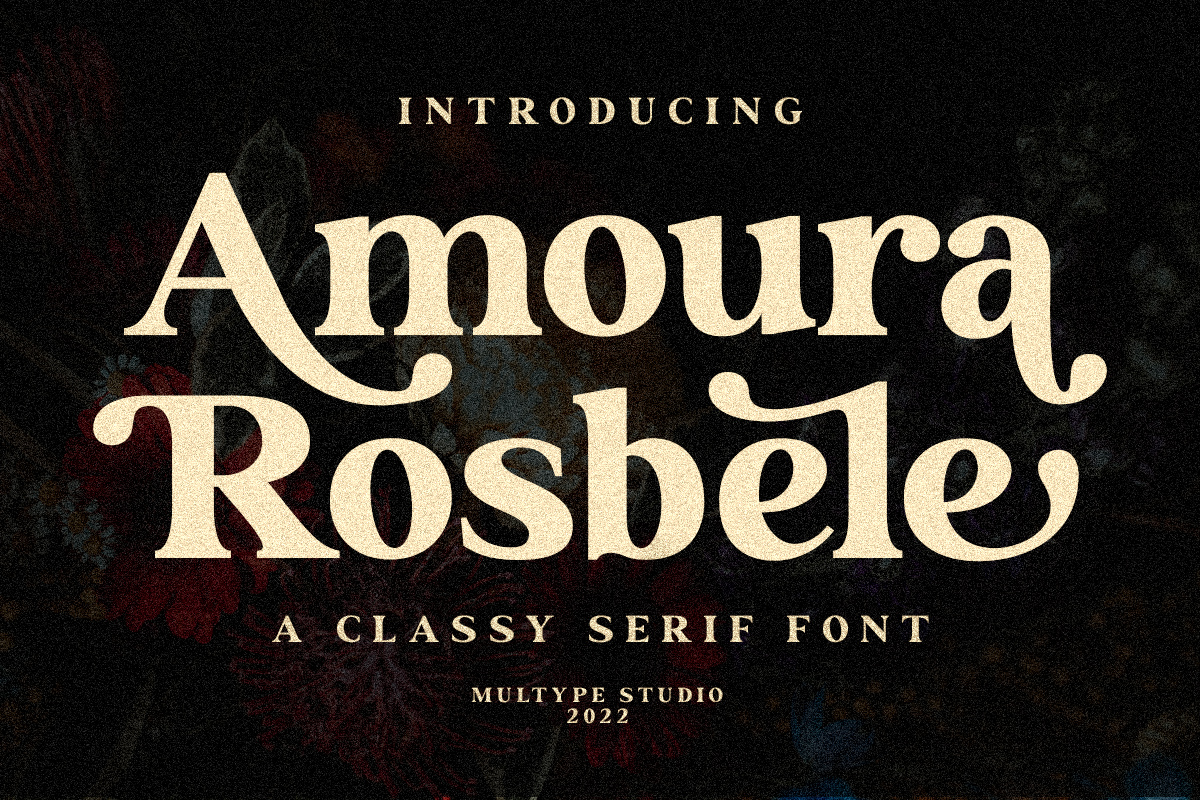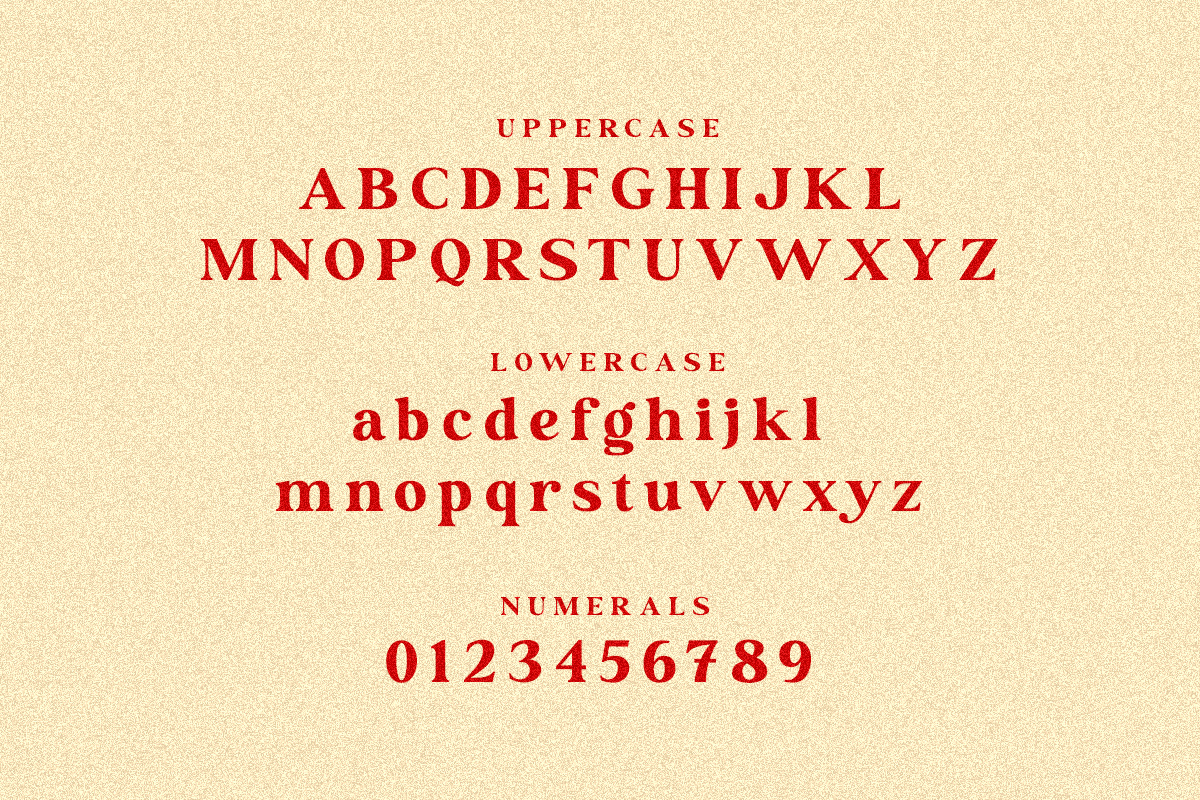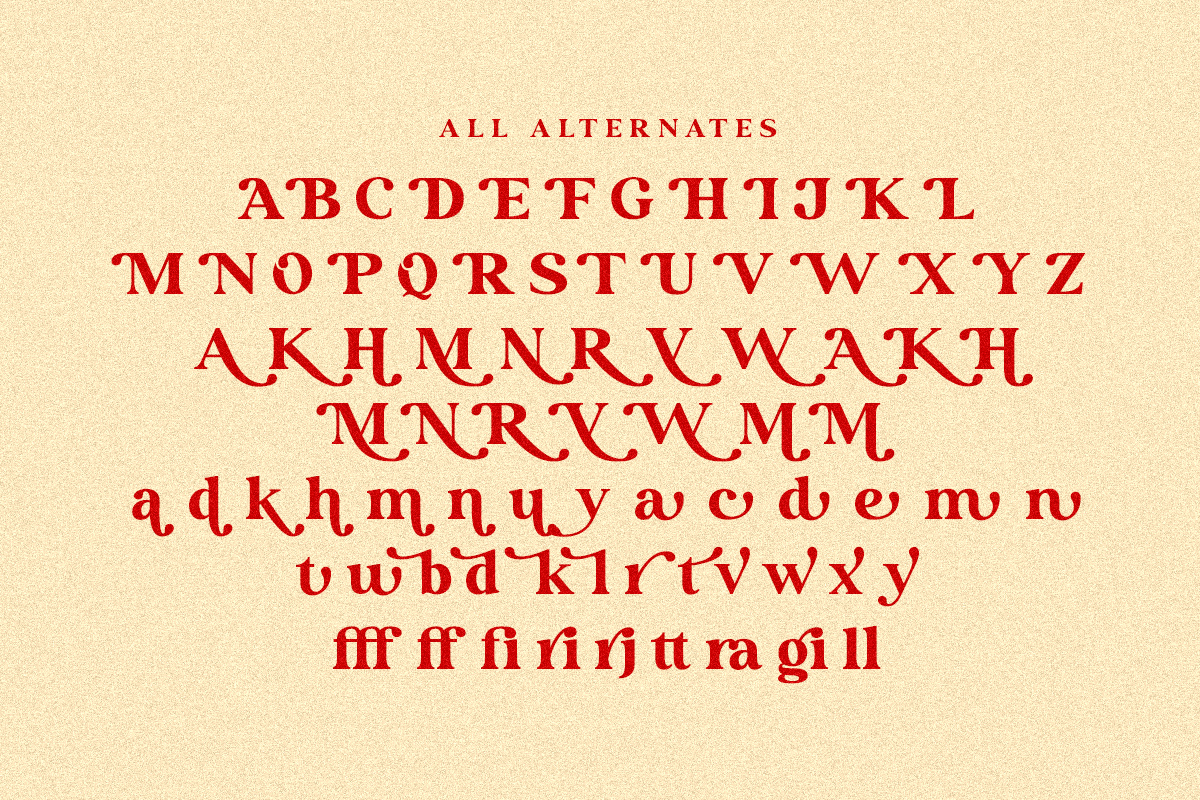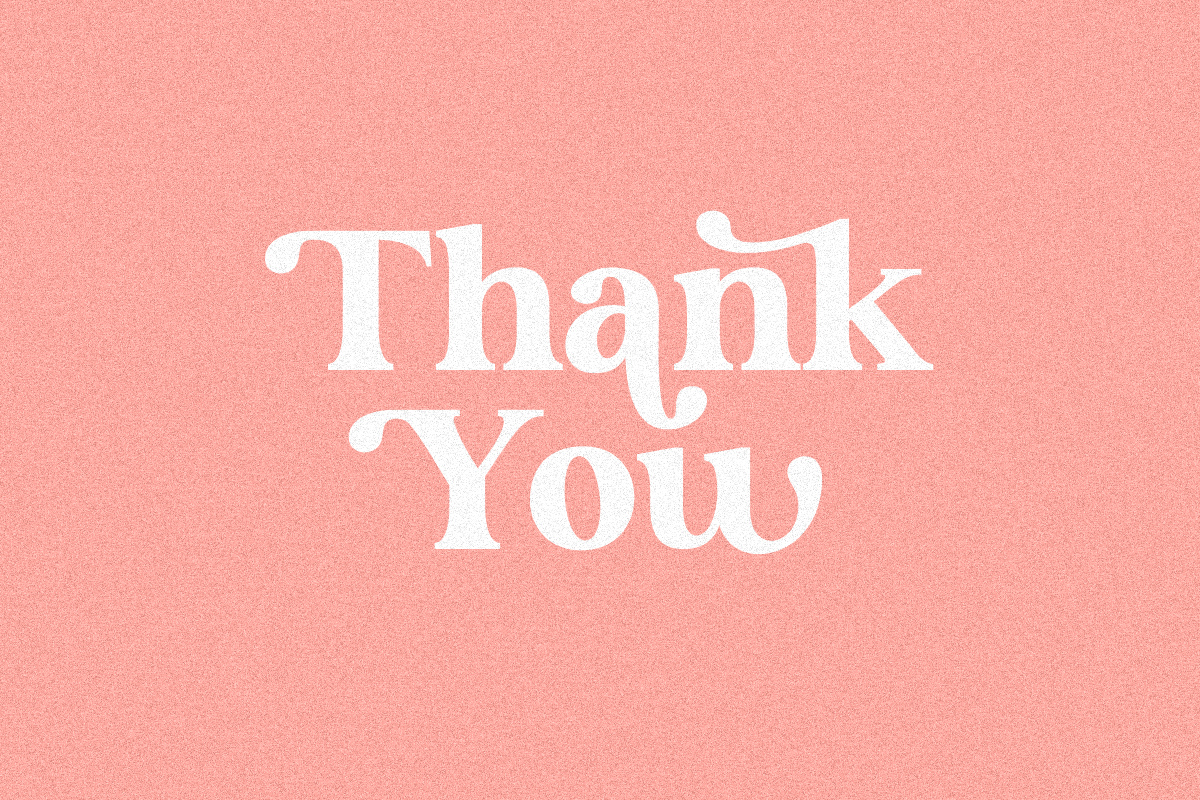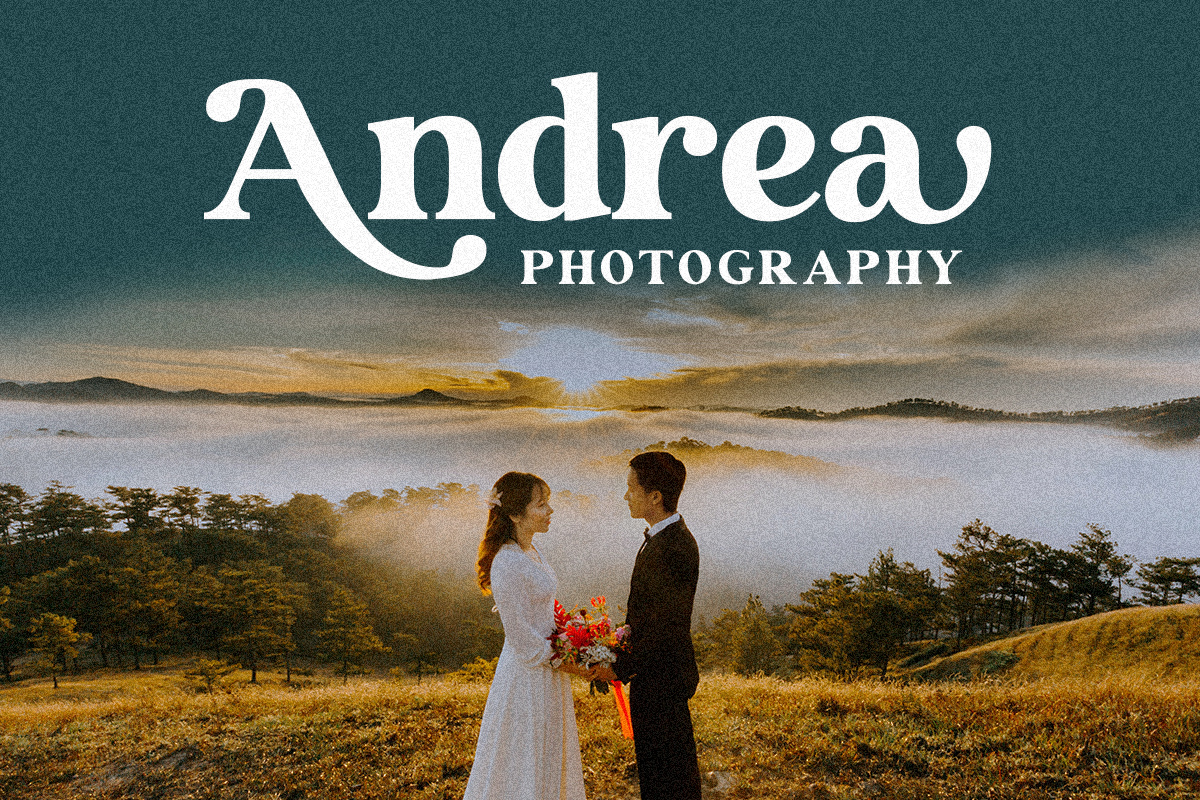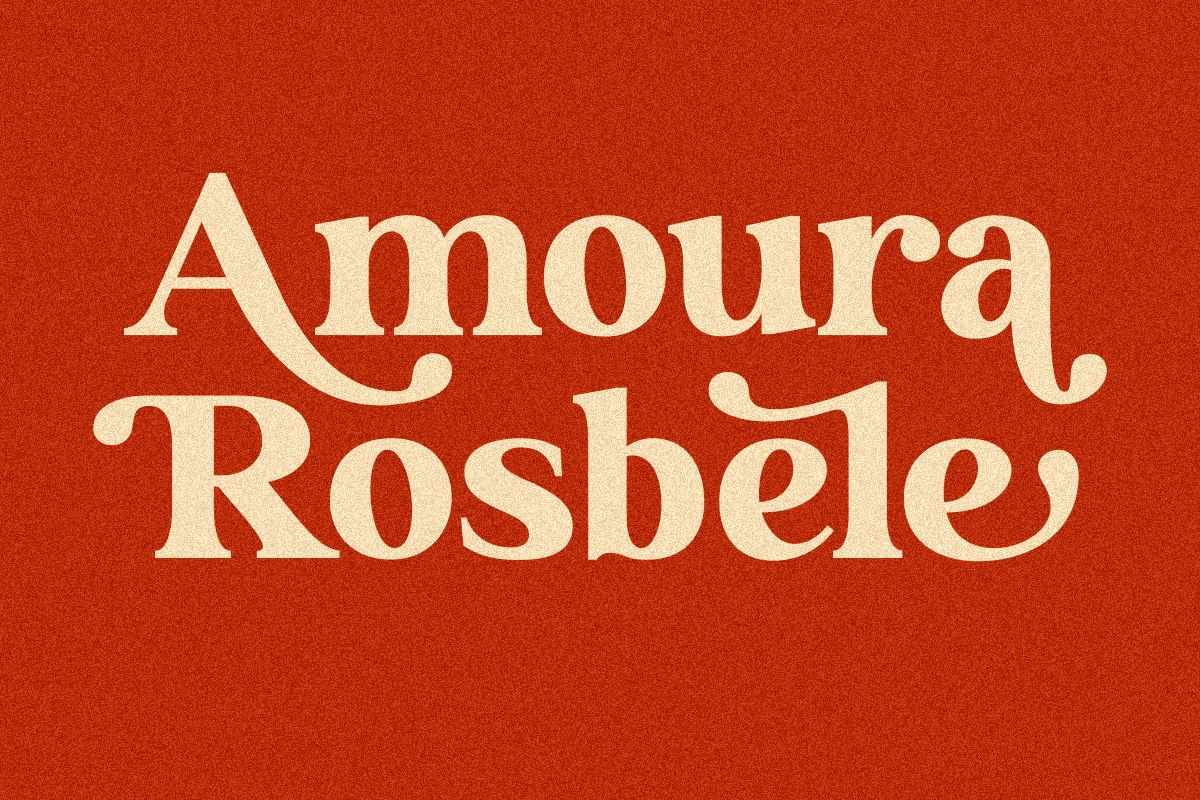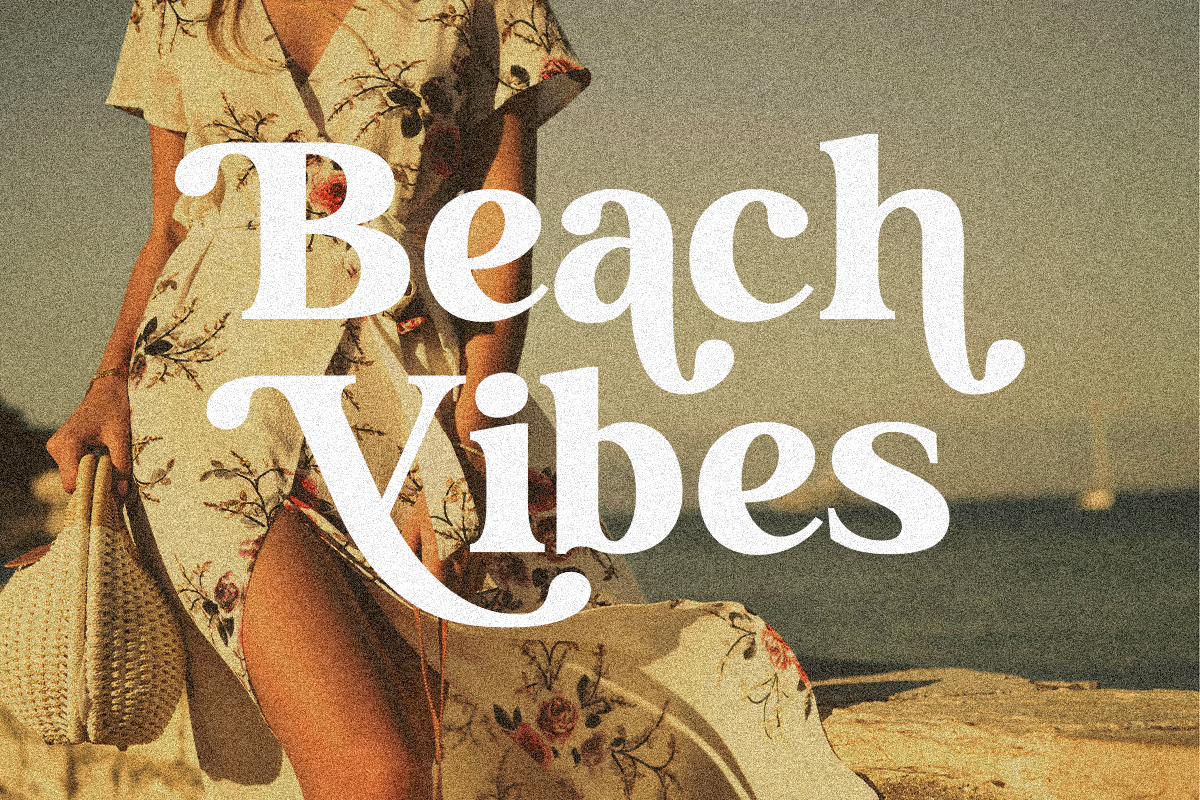
Amoura Rosbele Modern Serif Font
Amoura Rosbele is a modern and classy serif font. Amoura Rosbele is perfect for branding, logos, social media, advertisements, product packaging, watermark, invitation, stationery, tshirt, prints, posters and more.
• Uppercase & Lowercase
• Stylistic Alternate
• Ligature
• Numbers & Symbols
• Multilingual support